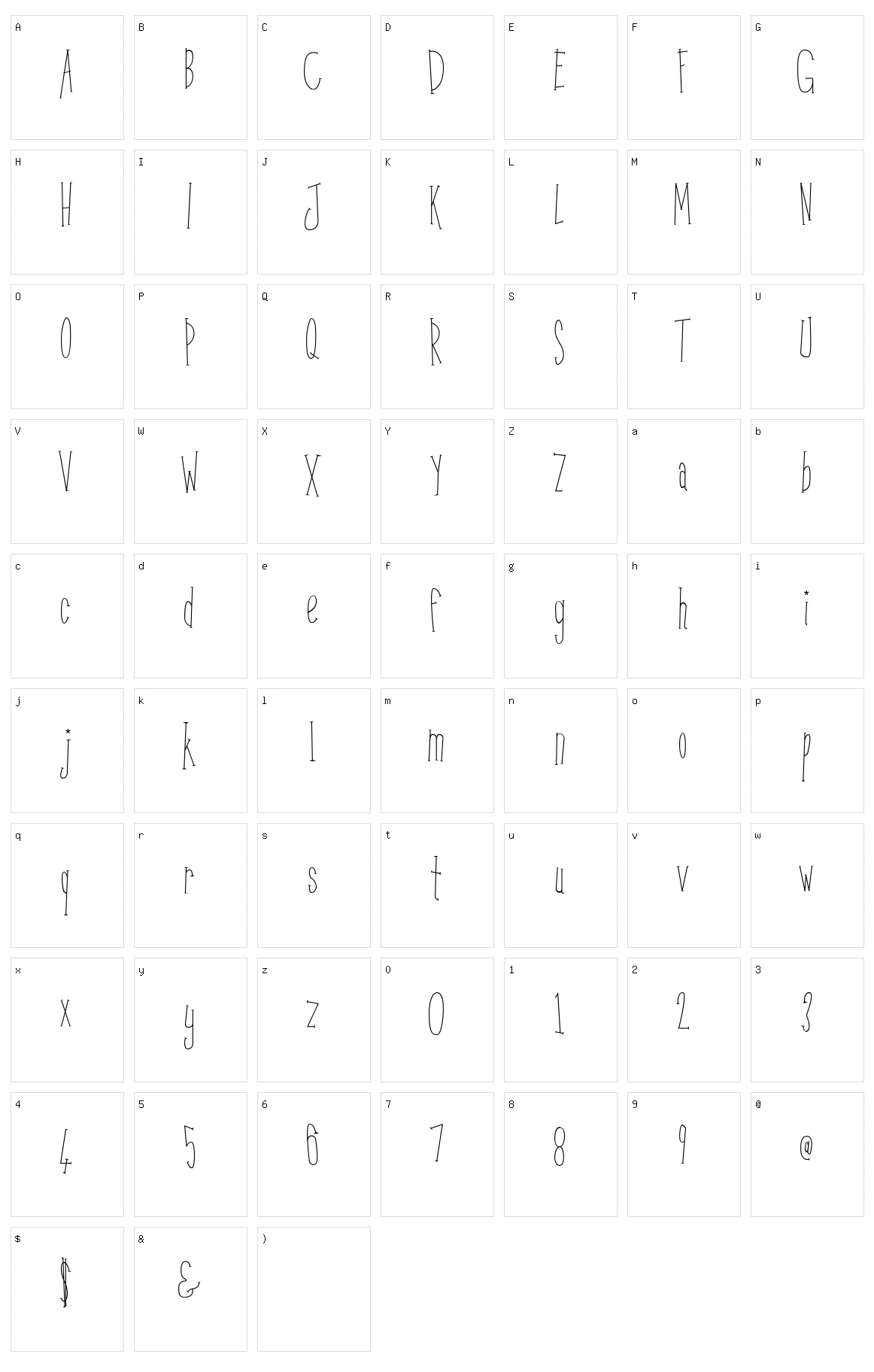
The free font Kunang Kunang is carefully designed by Cenz Qobbal, showcasing a thoughtful balance of creativity and usability and falls under the Cartoon font style. When you download the ZIP file, it contains only 46.28 KB of font files, making it lightweight and quick to download. Please review the license details below to understand permitted usage and distribution rights. If license information is not available, we recommend using this font for personal projects only or contacting the author directly for commercial usage permissions.
Kunang Kunang Fonts